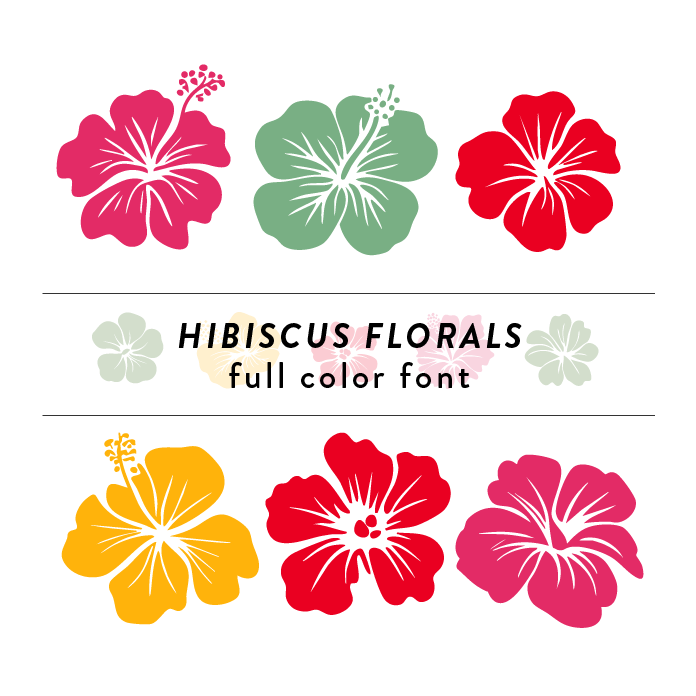
Hibiscus Flowers Full Color Font is a vibrant and playful font design inspired by the tropical beauty of hibiscus flowers. With its intricate floral patterns and bright colors, this font exudes a fun and summery vibe perfect for beach-themed projects. Its unique style adds a touch of whimsy and creativity to any design, making it ideal for home decor, summer projects, beach parties and more. This font is a OTF craft font that will appear in color only when used with the silhouette software.